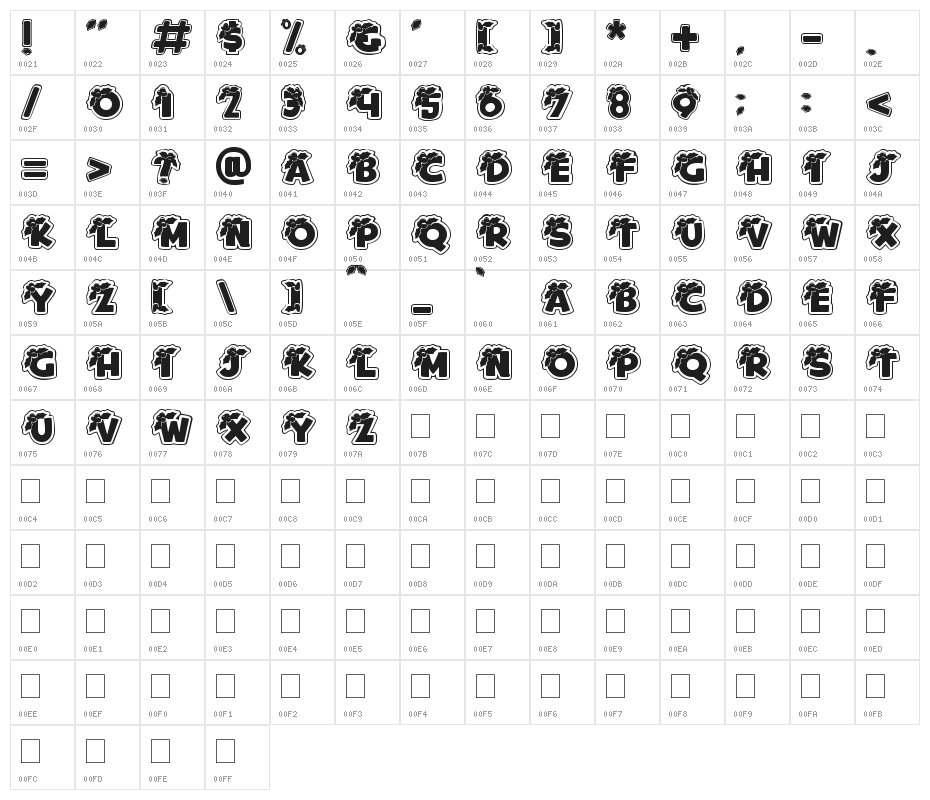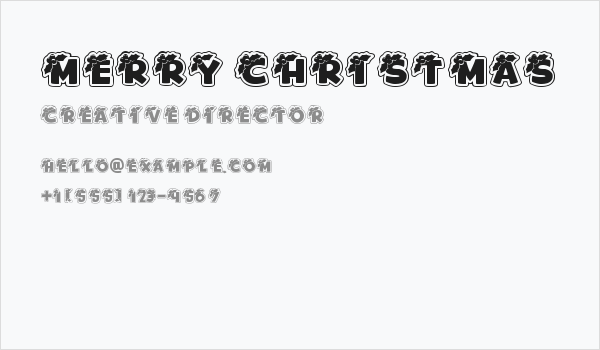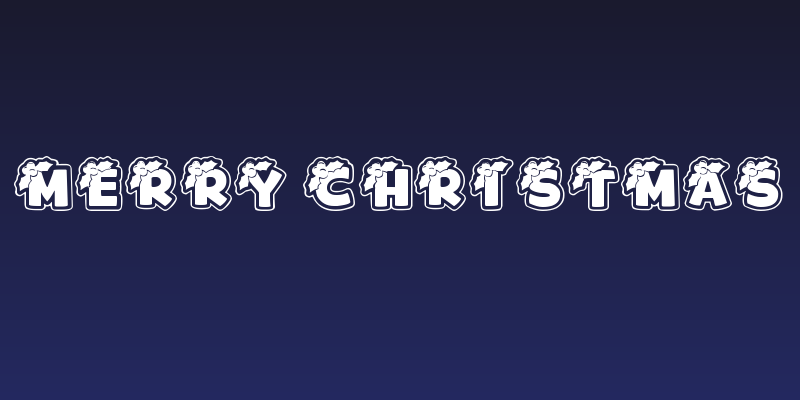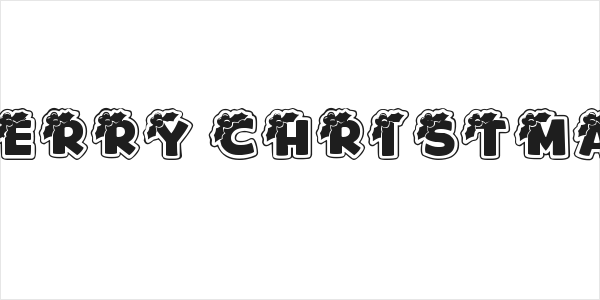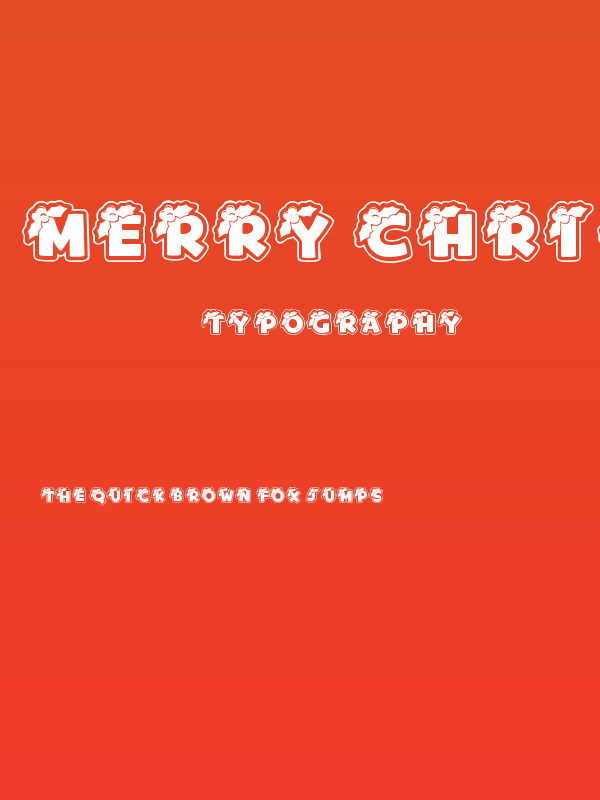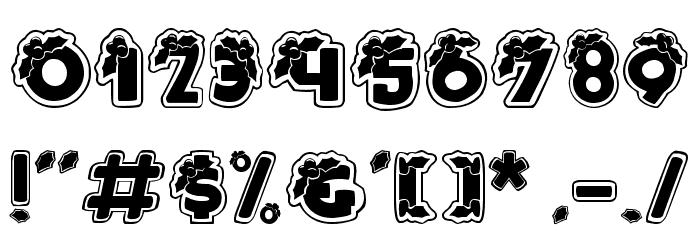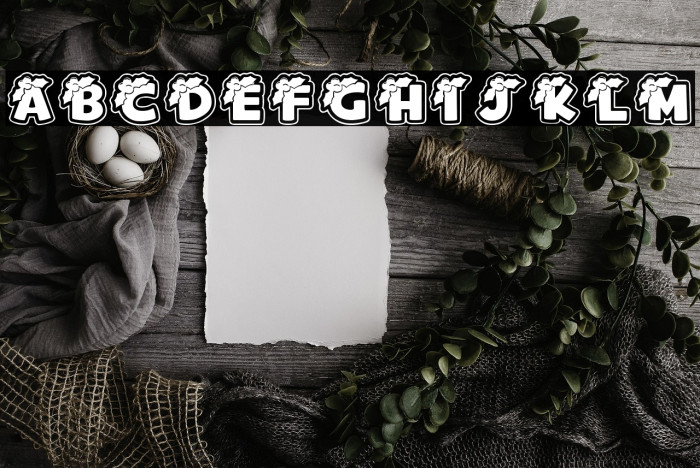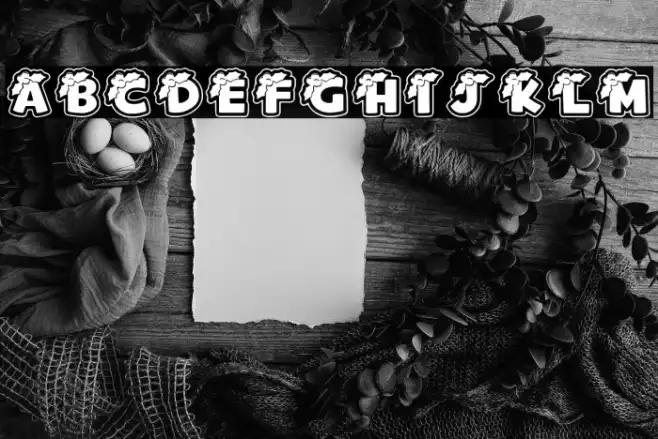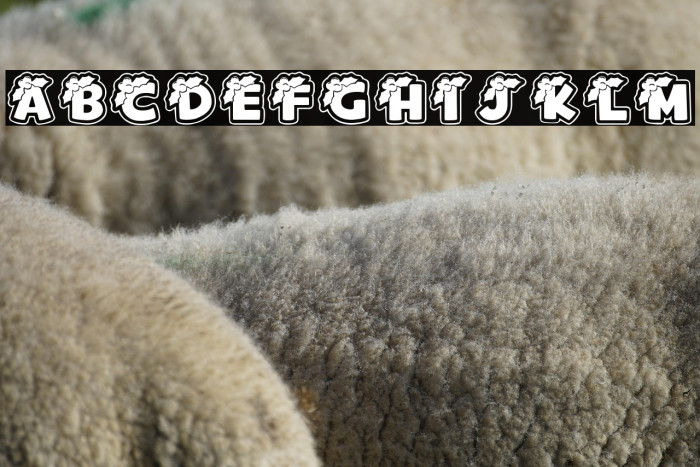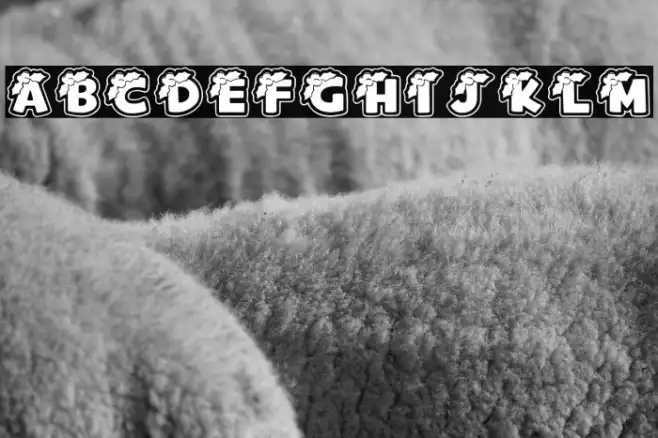
Merry Christmas Font
Merry Christmas Description
This festive font features bold, uppercase and lowercase letters adorned with decorative holly leaves, creating a playful and seasonal appearance. The characters are outlined with a thick black border, enhancing their visibility and adding a touch of whimsy. The numbers and special characters follow the same decorative theme, making the font cohesive and ideal for holiday-themed designs. The overall style is both fun and eye-catching, perfect for capturing the spirit of the season.
| Overall Style | Festive, Playful |
| Use Case | Headlines, Logos, Seasonal Designs |
| Proposed Projects | Ideal for holiday cards, festive banners, seasonal advertisements, and Christmas-themed invitations. |